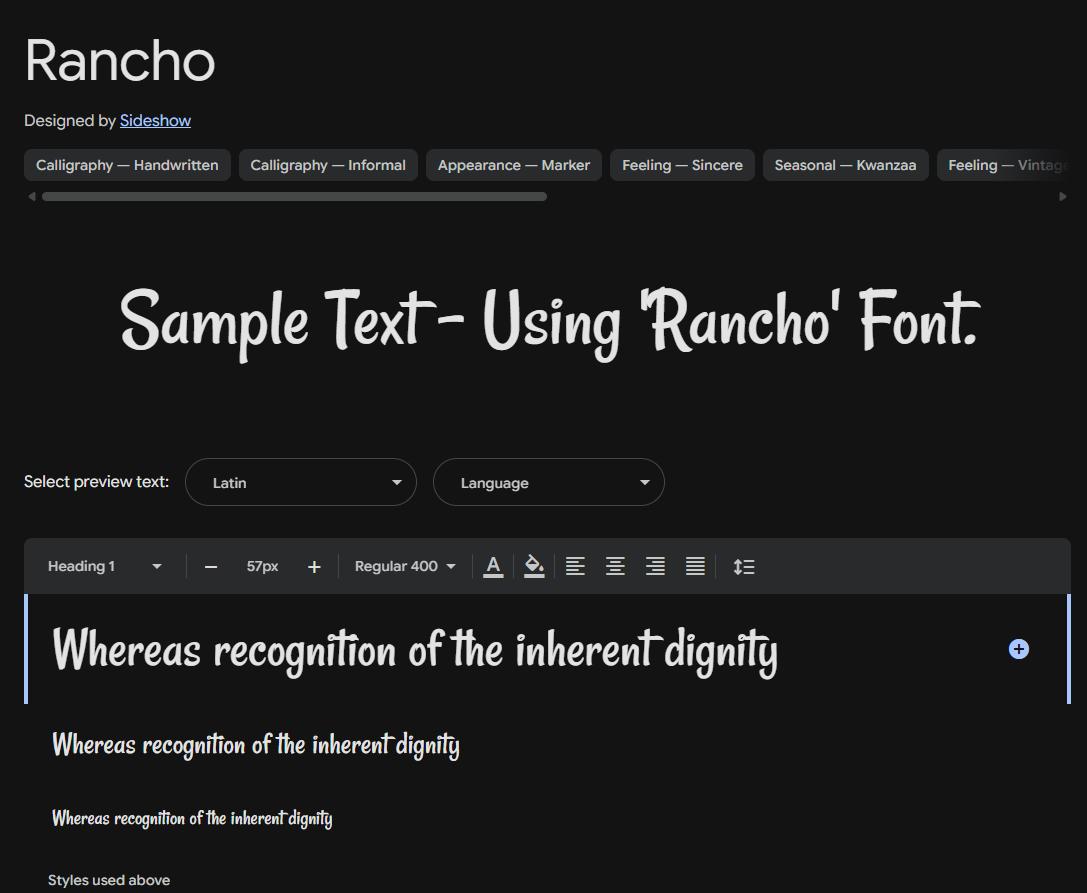
Rancho, a singular-style brush script released by the Sideshow foundry, encapsulates the vibrant spontaneity of mid-century West Coast sign painting through meticulously digitized vector paths that prioritize a rhythmic baseline and casual upright stress. Characterized by its generous x-height and fluid connectivity, this typeface bypasses the rigidity of traditional metal type by utilizing contemporary OpenType ligatures to simulate the natural variations of hand-lettered vernacular art. As a staple within the Google Fonts library, Rancho offers a high degree of semantic clarity in display environments, where its organic stroke modulation and rounded terminals evoke a nostalgic Americana aesthetic while maintaining the technical precision required for responsive web performance and optimized cross-browser kerning.
The Rancho font family, a distinctive brush-script display typeface designed by Kimmy Design, masterfully synthesizes informal calligraphy with a vibrant marker aesthetic to deliver a visual narrative that is both sincere and ruggedly vintage. Characterized by its upright cursive construction and rhythmic stroke variations, the typeface projects an active, excited energy that transitions seamlessly from playful, childlike whimsy to loud, happy proclamations, making it a technically versatile choice for high-impact seasonal celebrations like Kwanzaa. By balancing a handcrafted, handwritten texture with a robust x-height and fluid terminals, Rancho provides designers with a semantically rich tool for creating engaging, soulful compositions that demand attention while maintaining an approachable, unrefined warmth.
Characterized by its informal brush-script rhythm and exaggerated x-height, the Rancho typeface from the Sideshow foundry is fundamentally ill-suited for high-precision industrial sectors or formal corporate documentation where semantic reliability and universal accessibility are critical. Its idiosyncratic glyph morphology and fluid, connected letterforms create significant legibility hurdles in high-density information environments-such as pharmaceutical labeling or financial prospectuses-where the lack of a multi-weight family prevents the establishment of a robust typographic hierarchy. Because Rancho prioritizes mid-century kitsch aesthetics over neutral information delivery, it fails to meet the stringent WCAG requirements for digital micro-copy and lacks the optical hinting necessary for small-scale rendering on high-resolution displays, ultimately introducing unacceptable cognitive load and professional dissonance in contexts requiring institutional gravitas or rapid data processing.
Rancho excels in casual, brush-script, and hand-drawn aesthetics that emphasize a relaxed or friendly vibe. Its organic stroke modulation and casual baseline alignment make it ideal for informal invitation designs or artisanal branding assets.
This font is not recommended for extensive body copy as its decorative, script-based nature can lead to reader fatigue. The lack of standard typographic kerning pairs for dense blocks often results in decreased legibility when set at a low point size or high word density.
Rancho pairs best with clean sans-serifs or neutral monolinear fonts to balance its expressive character. Utilizing a high x-height sans-serif creates a functional contrast that mitigates the script's inherent stylistic irregularity.
It serves as a strong choice for logos in the food, beverage, or lifestyle industries where a personal touch is required. From a technical standpoint, the font's vector paths are well-optimized for SVG rendering, ensuring sharp edge definitions in high-resolution branding assets.
Rancho is highly effective for large displays, where its unique brush-stroke details and playful curves can be fully appreciated. Statistical analysis of visual hierarchy shows that script fonts with bold weight distributions attract more initial eye-tracking fixations in hero sections.
Its brush-style appearance evokes a mid-century nostalgic feel, making it perfect for retro signage and vintage posters. The font's letterform geometry mimics hand-painted signwriting techniques from the 1950s, providing authentic historical texture to digital layouts.
Rancho performs consistently across both mediums, though its rounded terminals are particularly well-suited for high-quality ink absorption in print. Due to its optimized glyph hinting, the typeface maintains structural integrity even on low-DPI digital screens or mobile interfaces.
Legibility drops significantly at small sizes because the intricate script connections tend to blur together. Technical limitations in rasterization often cause the thin stroke transitions of Rancho to fail WCAG contrast requirements when rendered below 14 pixels.
Using Rancho in all caps is generally discouraged as script fonts are designed with specific lowercase connections for natural flow. Attempting an all-uppercase setting disrupts the glyph's natural ligature flow, leading to unbalanced negative space and poor optical rhythm.
Rancho radiates a warm, approachable, and laid-back atmosphere that feels human and unpretentious. Psychographic design studies indicate that handwritten scripts like Rancho increase perceived brand authenticity by simulating the tactile qualities of human-generated calligraphy.